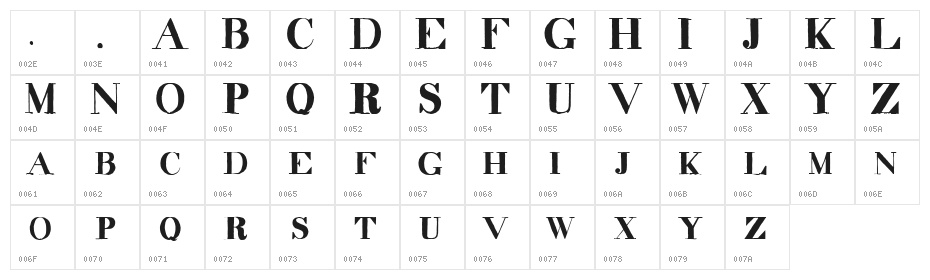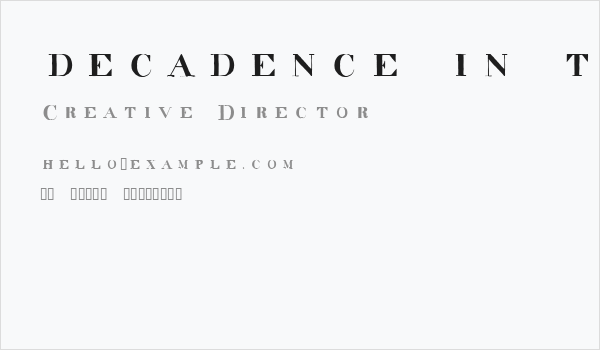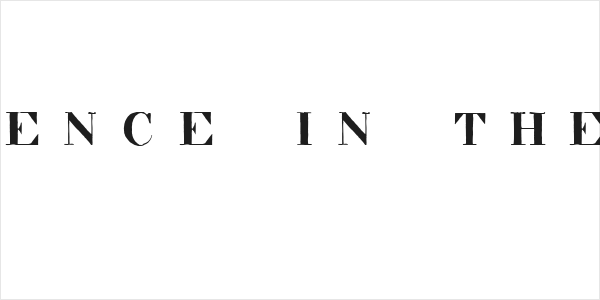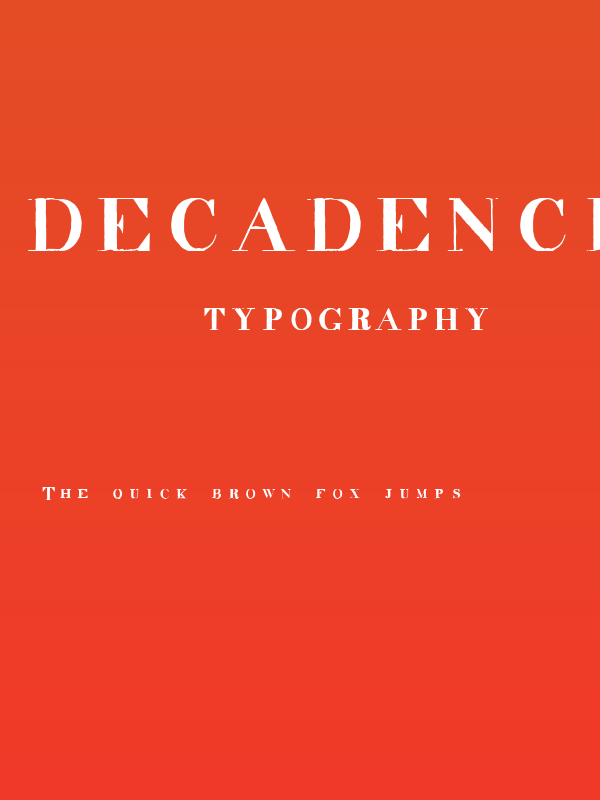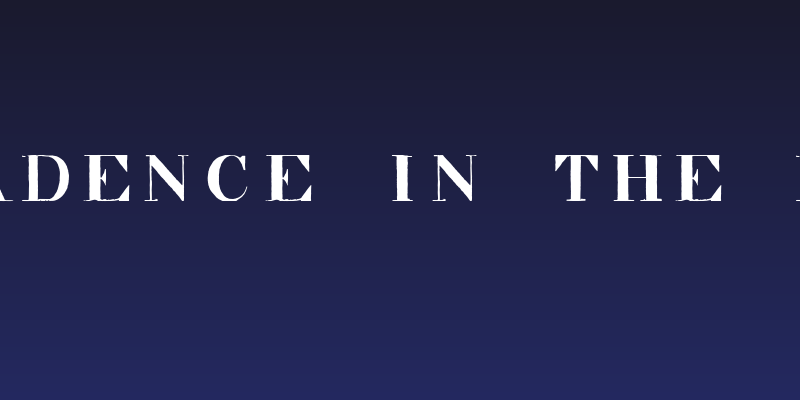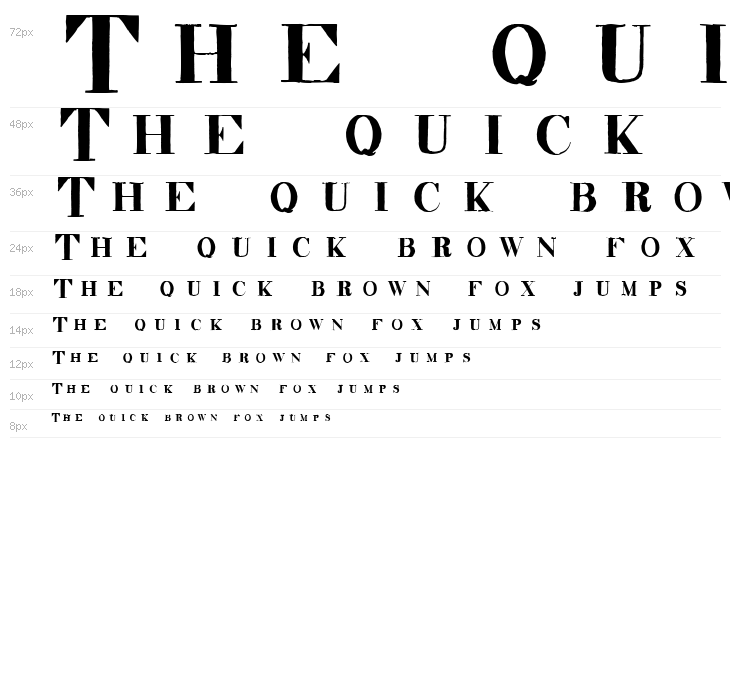
decadence in the dark Font
decadence in the dark Description
This font features a bold and dramatic serif style, characterized by its high contrast between thick and thin strokes. The uppercase letters exhibit a classic elegance with sharp, pointed serifs and a slightly condensed form, giving it a sophisticated and authoritative appearance. The lowercase letters maintain the same high contrast and sharpness, ensuring consistency throughout the typeface. The numbers and special characters follow the same design principles, making them suitable for impactful and stylish presentations. This font's distinct style makes it ideal for projects that require a touch of luxury and refinement.
| Proposed Projects | Ideal for luxury branding, editorial design, and high-end product packaging. |